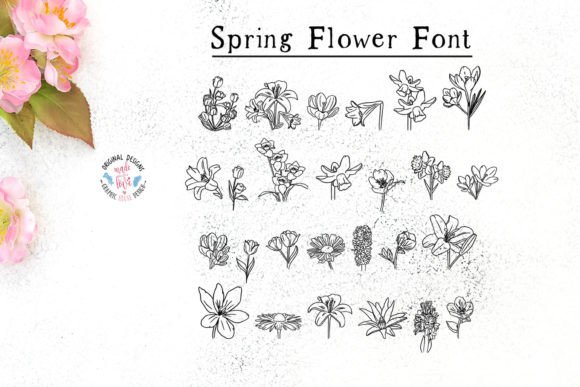
Looking for the perfect font to capture the beauty and freshness of spring? Look no further than Spring Flower Font, the best font for spring! This delightful dingbats font, created by GraphicHouseDesign, features tiny flowers and Easter elements that will add a touch of charm and whimsy to your designs.
Each element of this exquisite font is delicately crafted with intricate detail, ensuring that your designs will be infused with elegance and sophistication. Whether you're creating greeting cards, invitations, or Easter-themed designs, Spring Flower Font is the perfect addition to your toolkit.
With its unique and eye-catching design, Spring Flower Font is sure to make your designs stand out from the crowd. This font is versatile enough to be used for a wide range of applications, from print to digital media, making it an essential addition to any designer's collection.